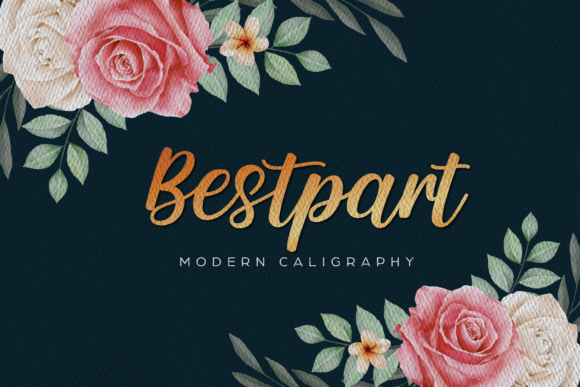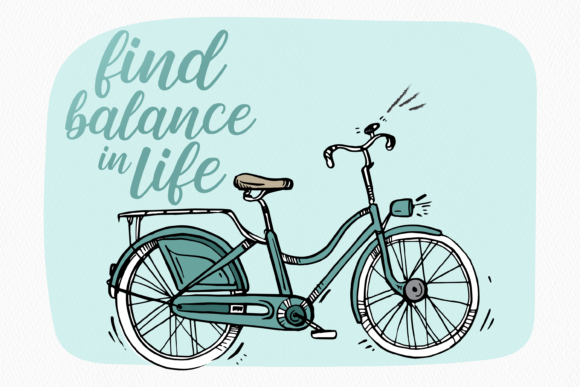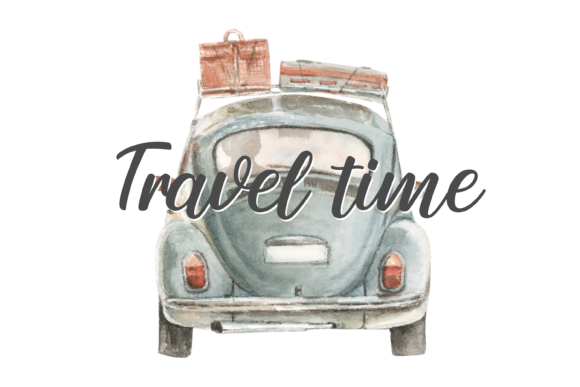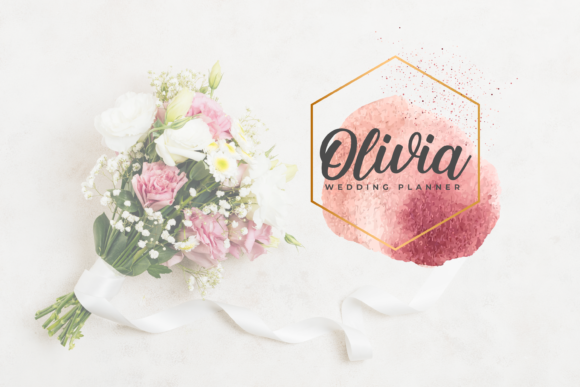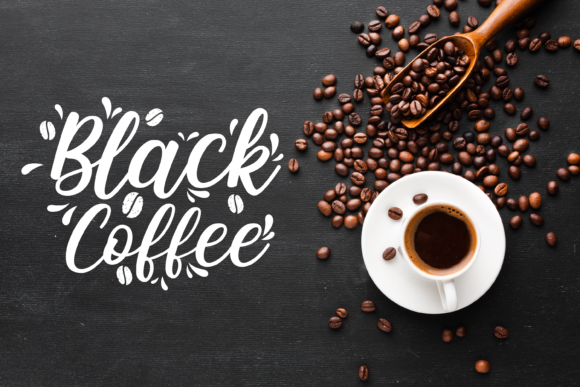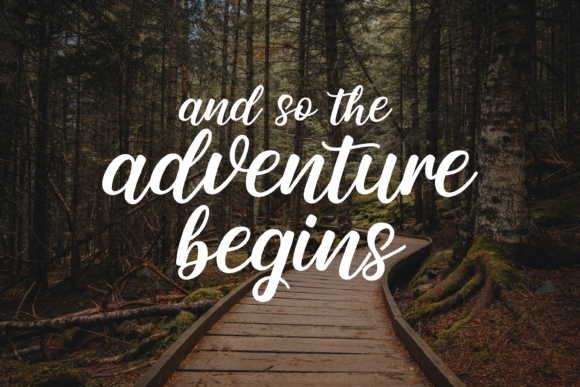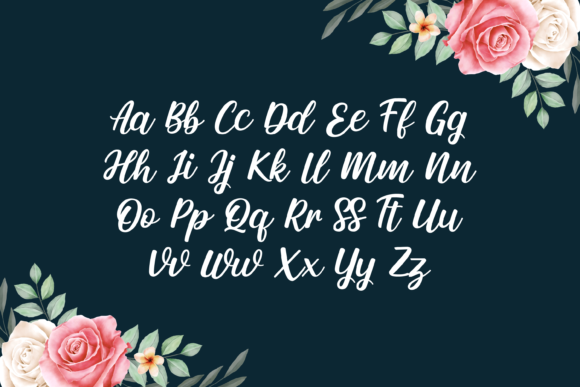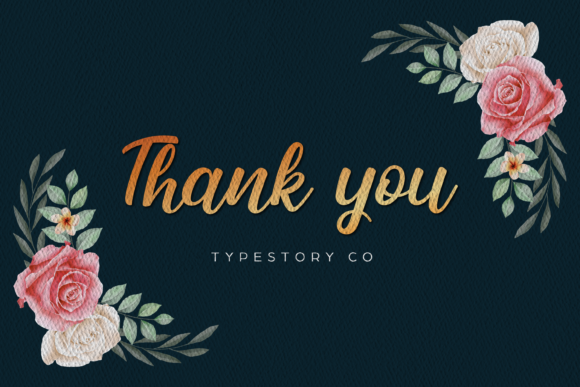
Bestpart Font
About Bestpart Font
Bestpart is inspired by modern calligraphy, making it the ideal crafting font! Get inspired by this gorgeous script!